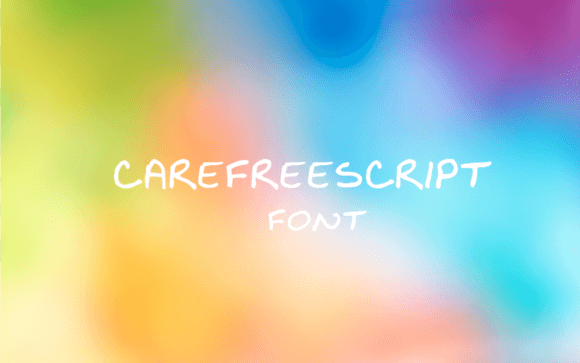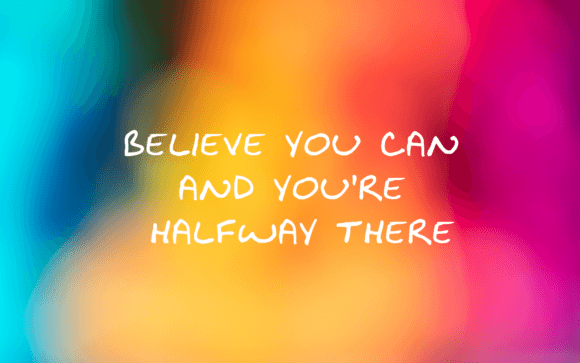
Introduction to Carefree Script Font
Introducing the perfect blend of spontaneity and boldnessβ€”our new thick, hand-drawn font is designed for those who love a casual yet eye-catching aesthetic.
With its free-flowing lines and imperfect charm, this font captures the essence of handwritten creativity Whether you’re working on playful logos, personal invitations, or dynamic posters, this typeface brings an authentic, personal touch to your designs, standing out with its carefree and lively energy.
Key Features of Carefree Script Font
Why Choose Carefree Script Font?
Carefree Script Font offers exceptional quality and versatility, making it a valuable addition to your design toolkit. Whether you’re creating for personal projects or commercial use, Carefree Script Font delivers professional results.